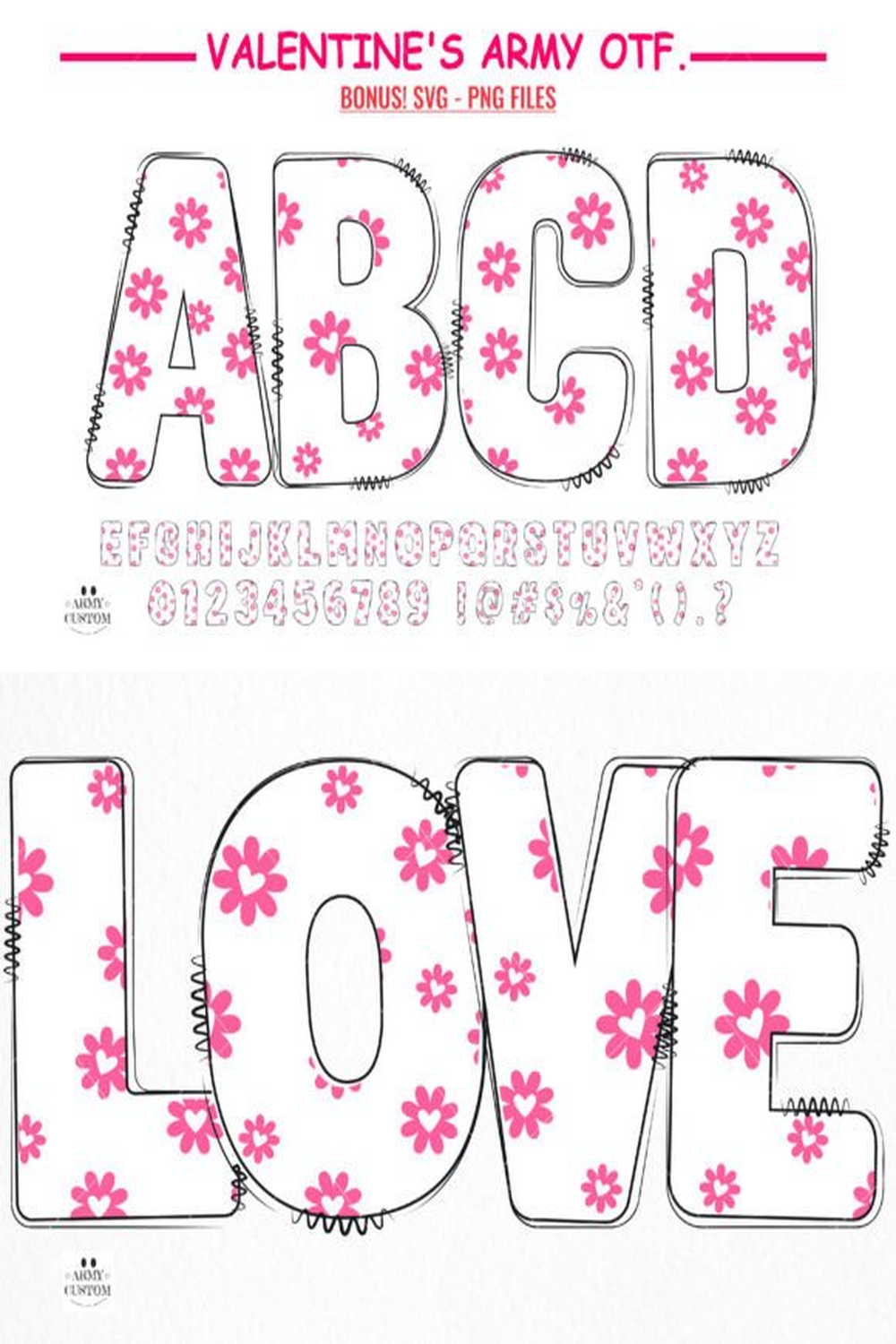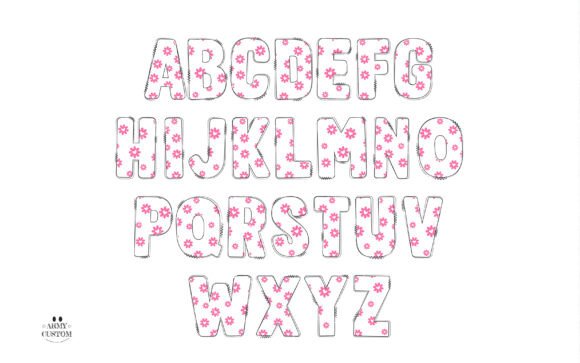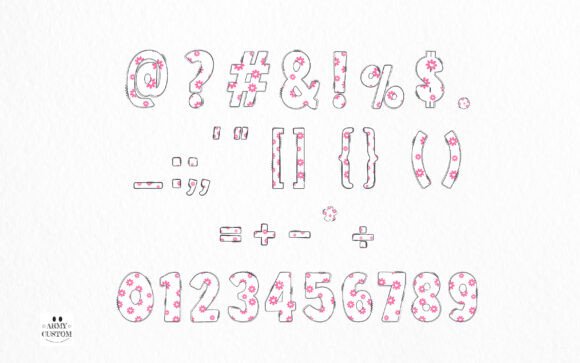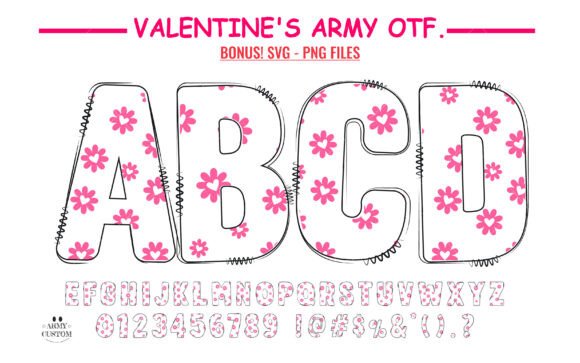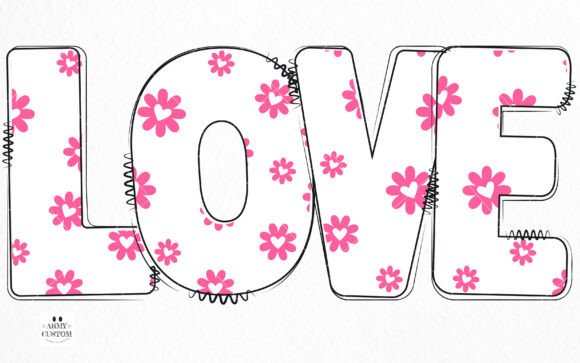
Love Valentine’s Flower Font
About the Love Valentine’s Flower Font
Crafted with precision, the Love Valentine’s Flower Font is ready to bring your ideas to life. Immerse yourself in affection with the enchanting “Valentine’s Army Flower Alphabet” font. Every stroke of this doodle font tells a tale of love, making it the perfect way to express your sentiments on the day dedicated to love. With each letter permeated by intricately doodled heart patterns, it’s a font that’s sure to touch your heart. Ideal for heartfelt messages, designs and creations this Valentine’s Day, beautifully articulating the universal language of love!